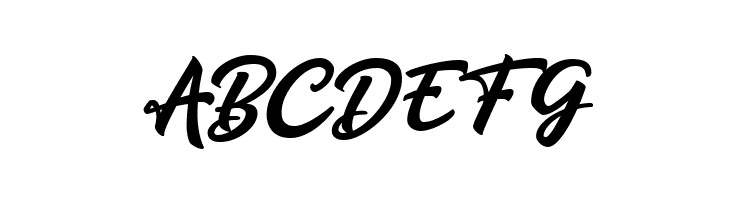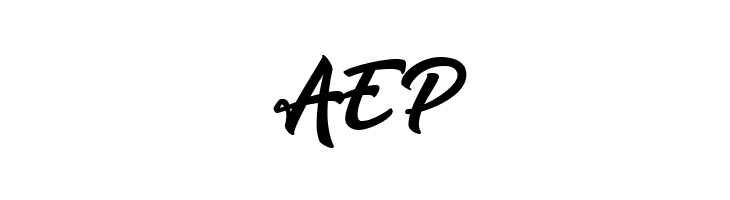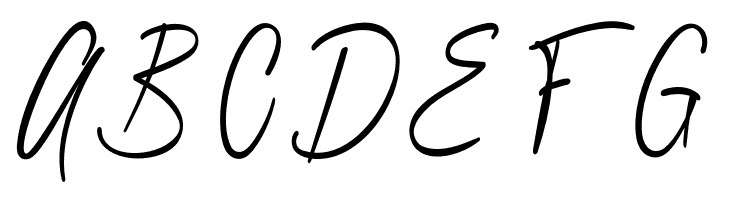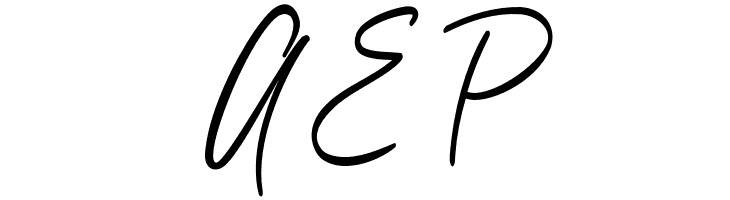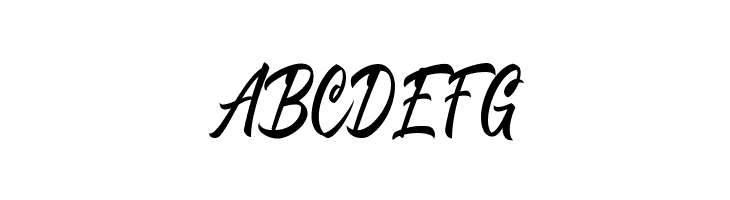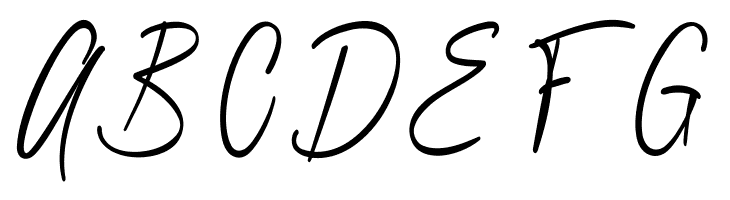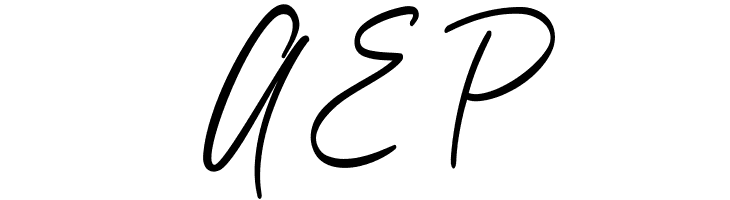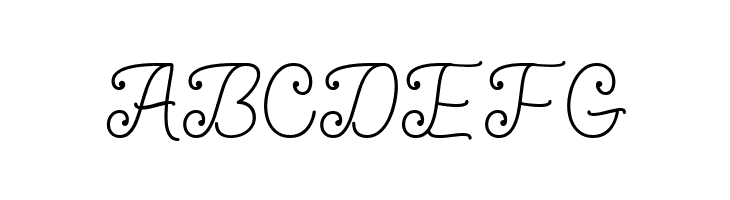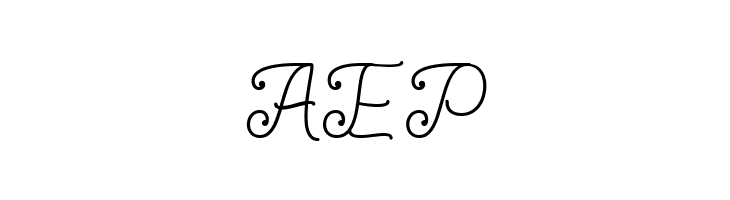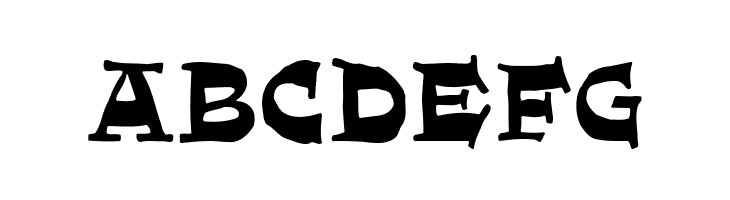
A bold, elegant script font with flowing, cursive strokes.
A dynamic script font with fluid, interconnected strokes and elegant style.
A bold, brush-style font with an energetic and handcrafted appearance.
A graceful and elegant script font with flowing, connected letterforms.
A playful and whimsical script font with decorative loops and swirls.
A playful, hand-drawn font with bold, uneven strokes and quirky serifs.
A fluid and elegant handwritten font with natural strokes.
A fluid and elegant script font with a handwritten appearance.